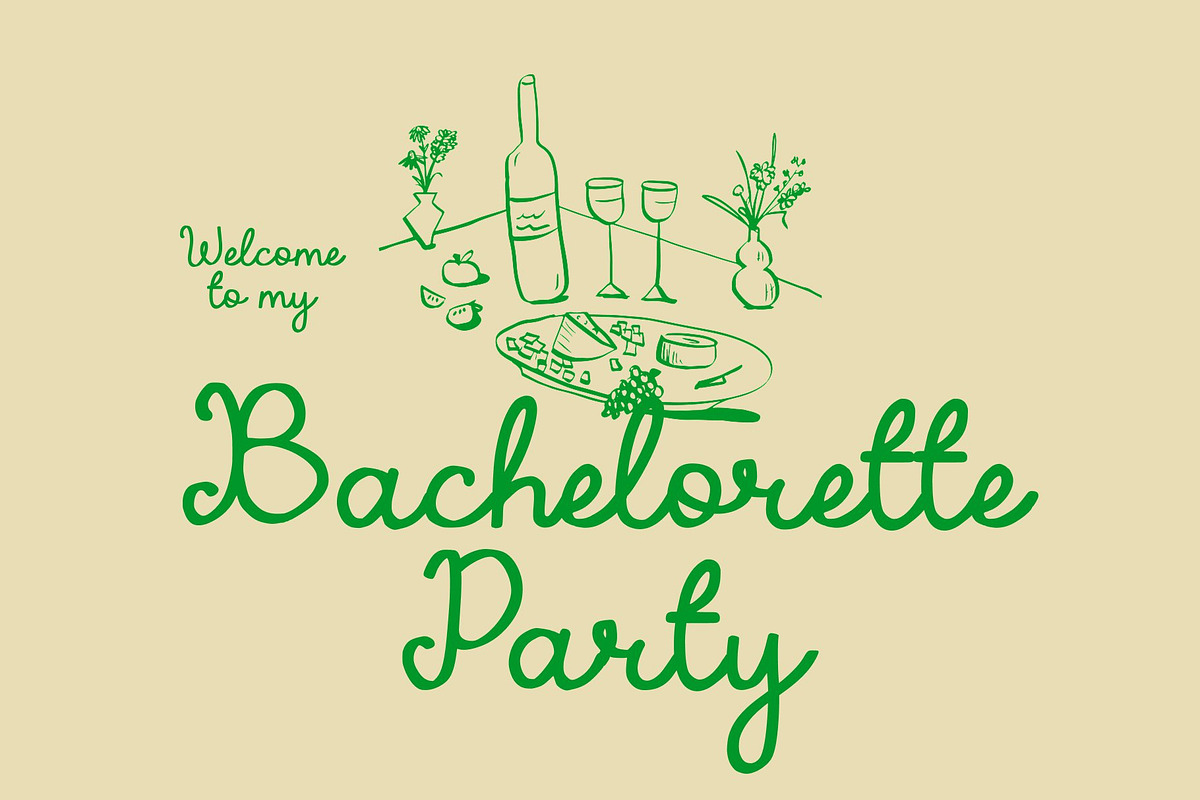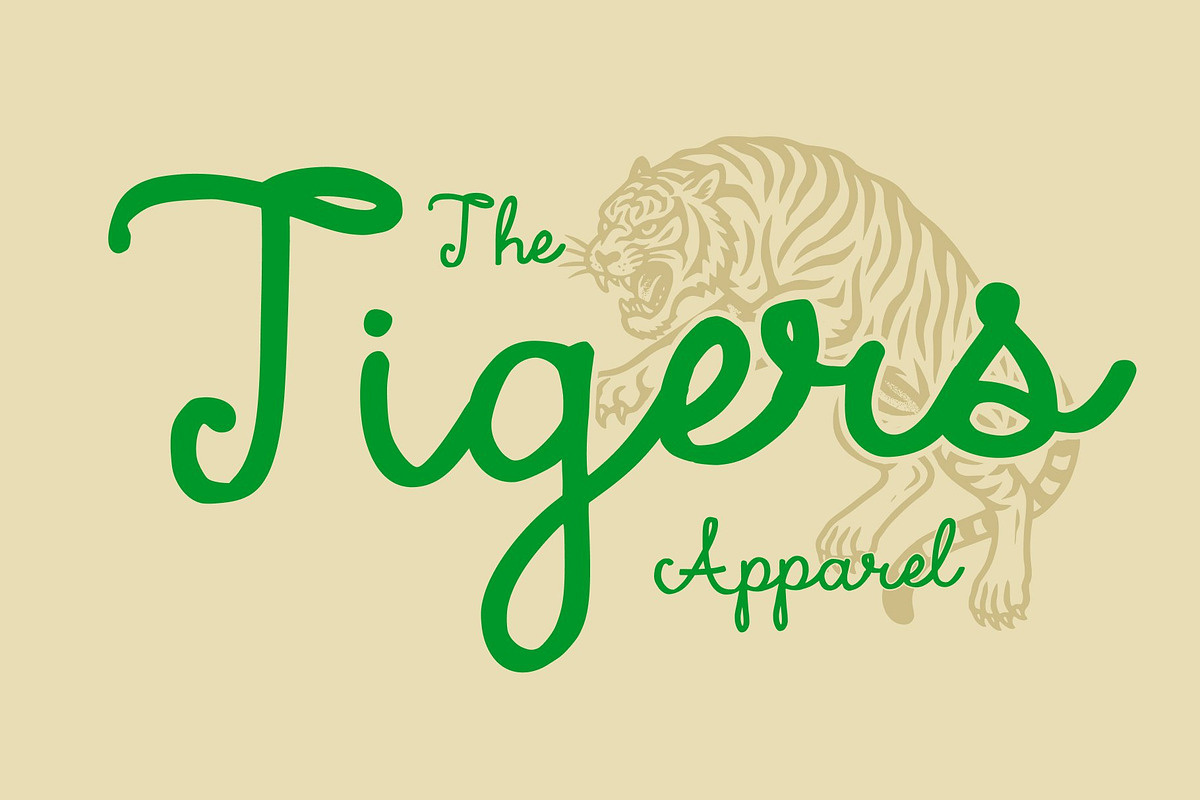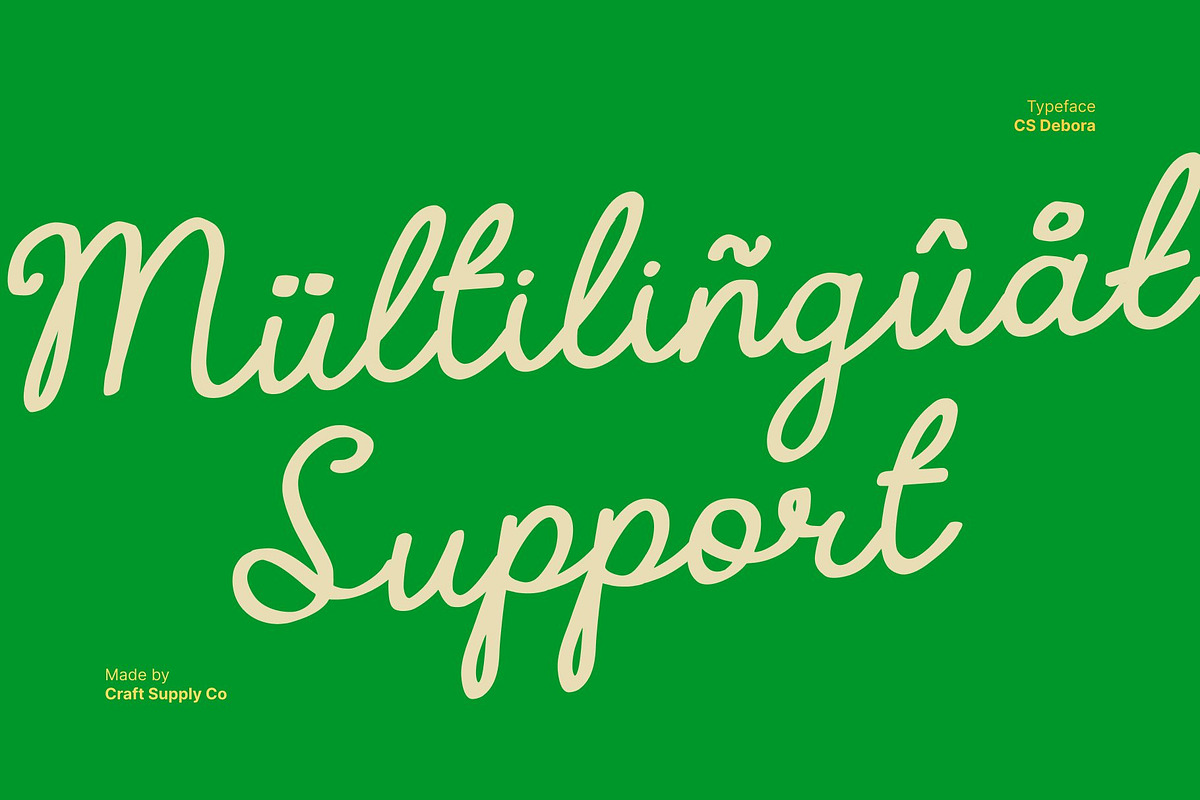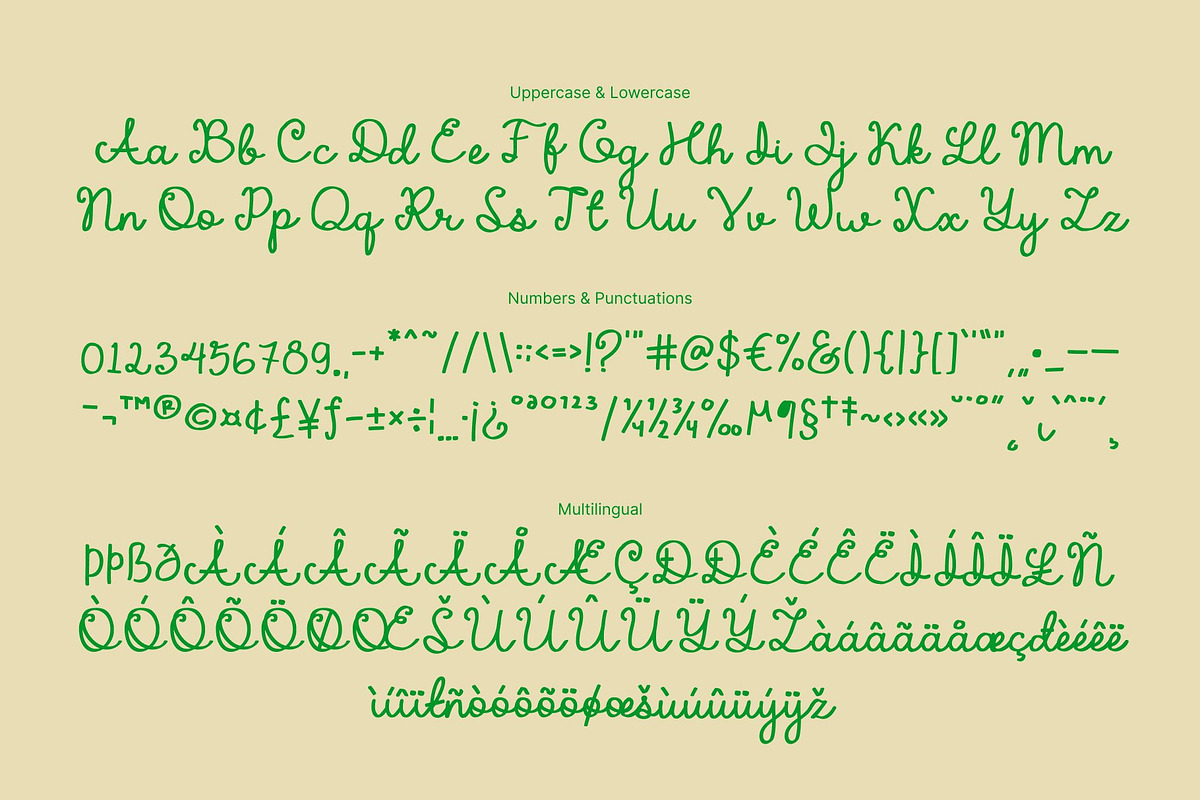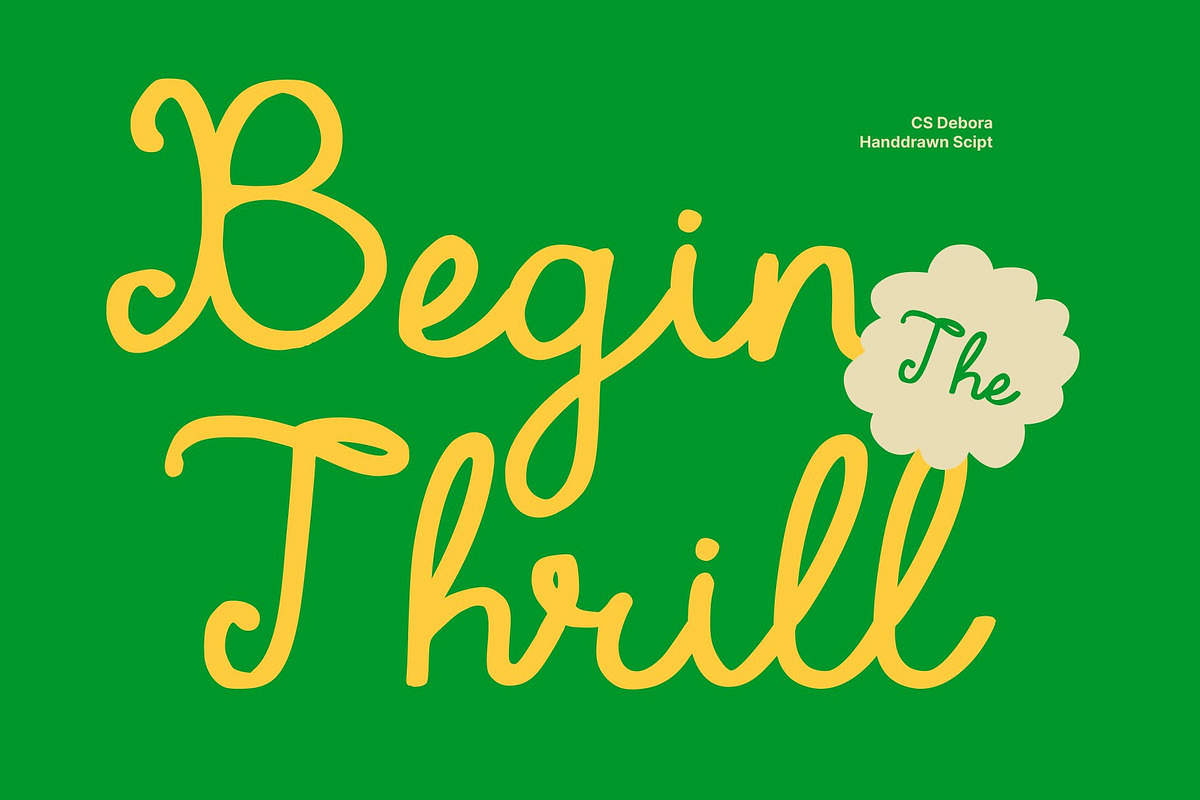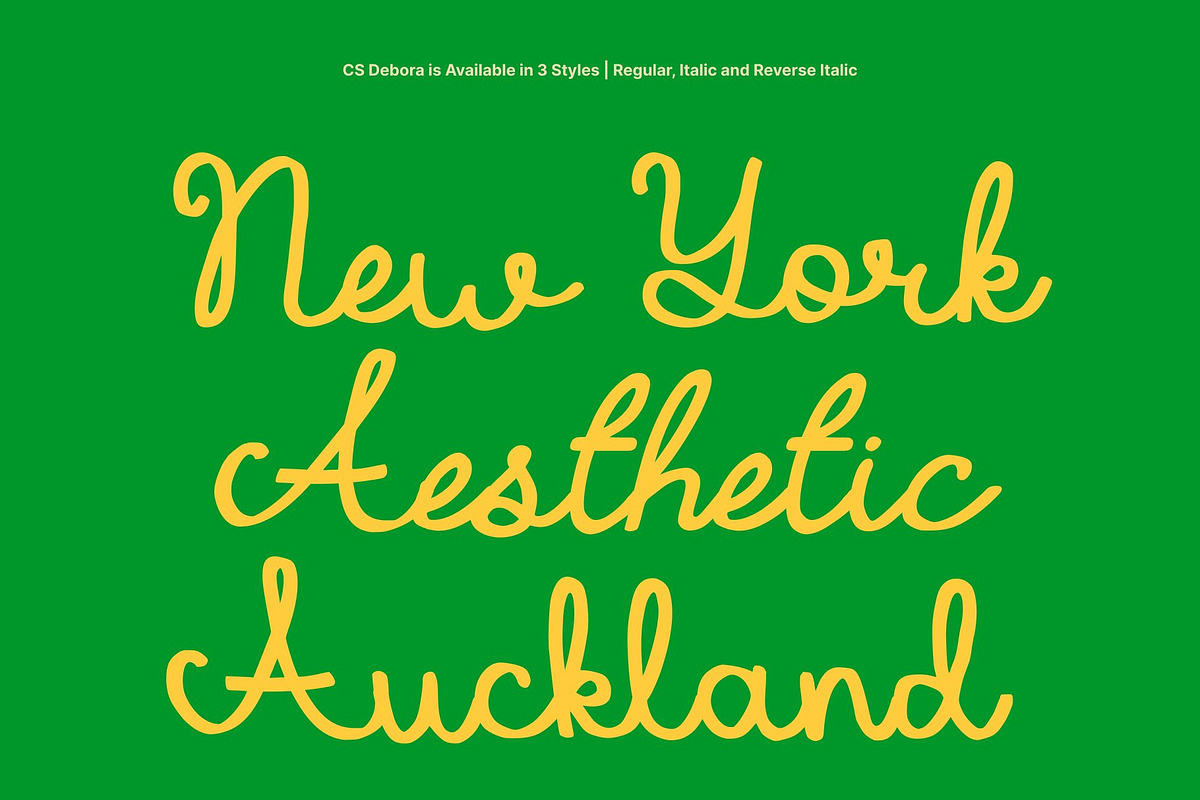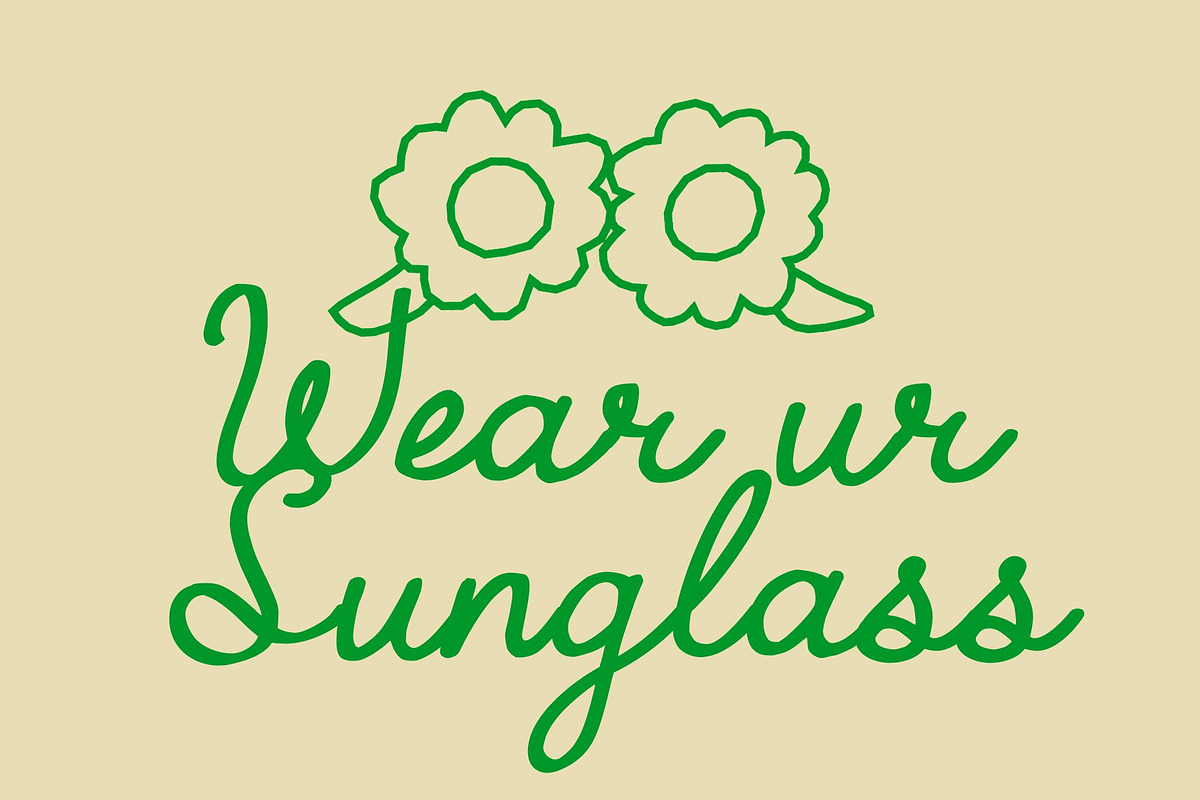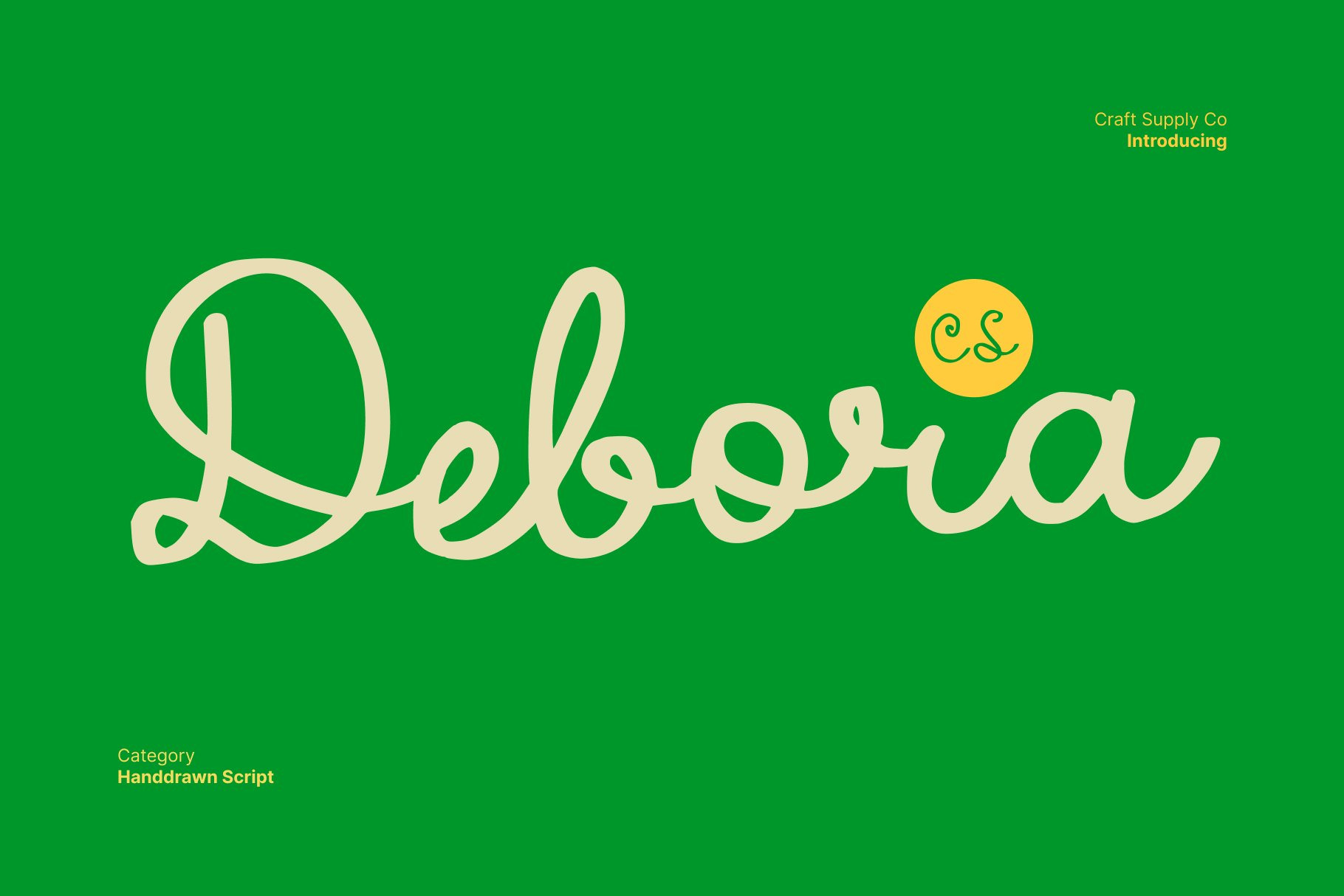
CS Debora – Handwritten Script Font
CS Debora – Handwritten Script Font: Romantic Script Font with Flowing Natural Beauty
Romantic and Stylish Handwriting This font is a handwritten script font designed to convey elegance, romance, and refinement. Its flowing strokes capture the grace of natural handwriting, creating a timeless aesthetic that feels personal and sophisticated. Perfect for designs that require a touch of luxury and charm.
Natural Flow and Graceful Curves Every letter in this font is carefully crafted with smooth, continuous lines that reflect authentic handwriting. The subtle variations in stroke and rhythm add warmth and personality, making it ideal for wedding invitations, fashion branding, or editorial layouts that seek a refined yet approachable style.
Italian Elegance Meets Modern Use Inspired by the sophistication of Italian design, this font balances classic beauty with contemporary sensibilities. Its stylish forms make it a versatile choice for projects that want to communicate luxury, romance, and creativity while staying modern and fresh.
Perfect for Luxury and Creative Branding This font shines in applications such as branding, packaging, editorial design, or digital content. Its romantic charm and flowing elegance ensure that every word feels expressive and polished, making it a go to font for designers aiming to infuse their projects with romantic inspired sophistication and style.